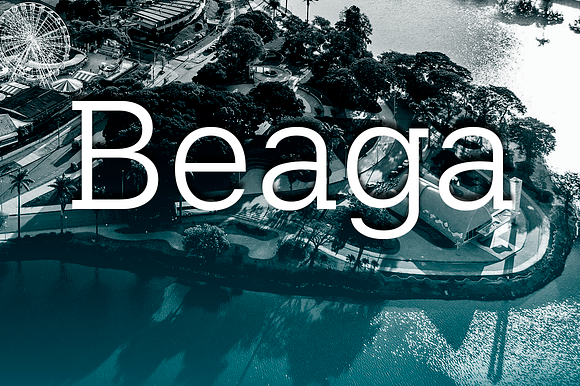
Beaga is a geometric slab-serif font family designed by Álvaro Thomáz
[80% OFF] Beaga | Font Family by Alvotype fits naturally into Branding, posters, packaging, typography.